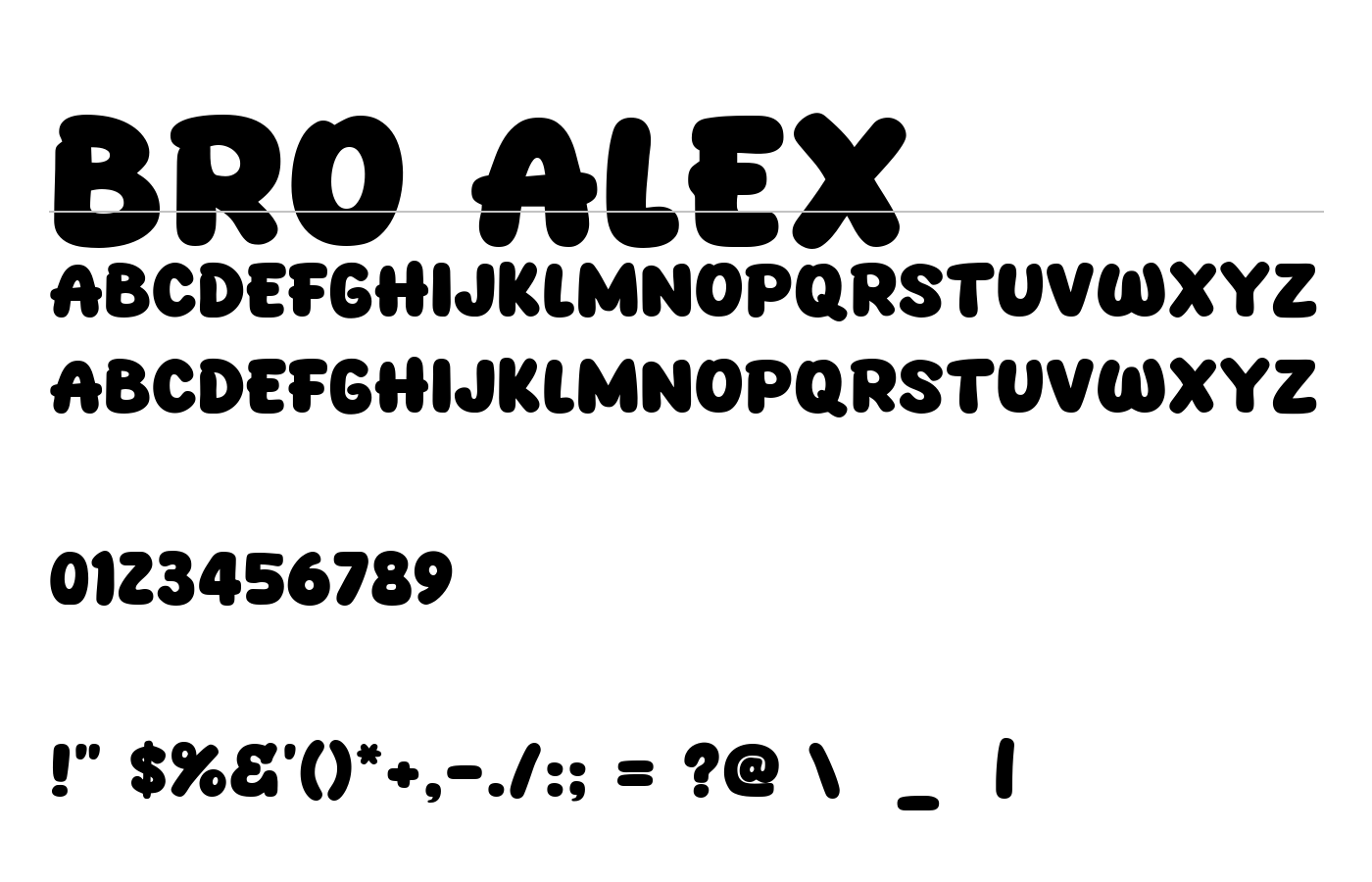
Bro Alex is a bold, rounded sans serif font with a playful and friendly personality. Its thick strokes and soft edges give it a casual, approachable feel, making it perfect for fun, informal designs like children’s materials, logos, or headlines that need a lively touch. The font’s clear, chunky letterforms ensure strong readability and memorable impact in both print and digital uses.
Bro Alex Font
About Bro Alex Font
| Font family | Bro Alex Font |